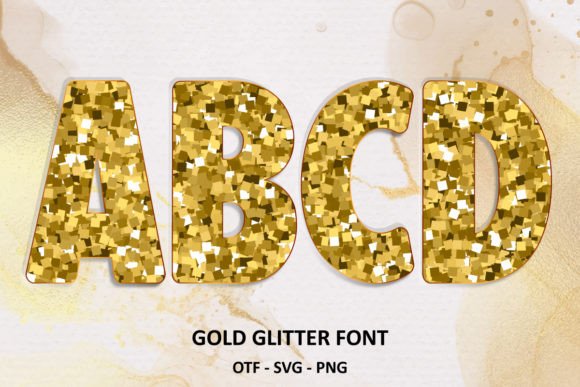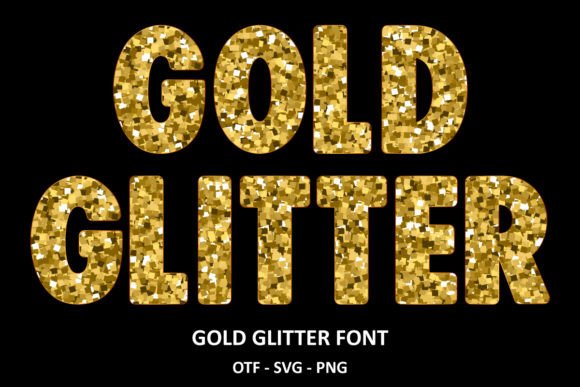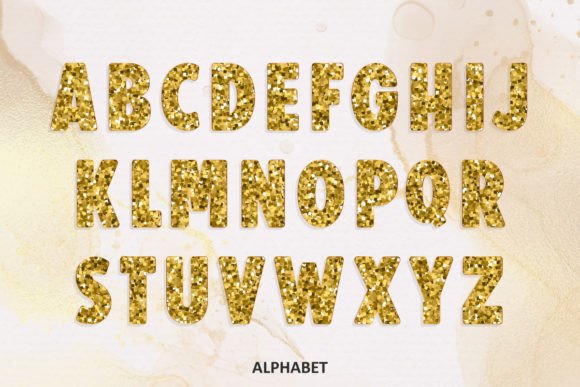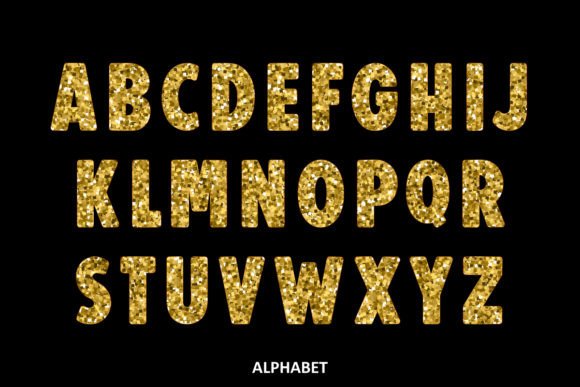
Gold Glitter Font
Introducing “Gold Glitter” font with a classy touch. — glitter is one of the most awe-provoking things! Its mesmerizing shine twinkles like someone cast a spell on it that will brighten up each of your designs. Perfect for logos, posters, websites, T-shirts and more. Add it confidently to your projects, and you will love the results.The black version of this font is compatible with Cricut Design Space and other cutting machines.Note! The color version of this font is only compatible with certain design programs incl. PhotoShop, Illustrator, Silhouette, and Inkscape. The OTF and/or TTF files of the color version are not compatible with Cricut. For more information on how to use this type of font please check our Ultimate Font Guide .